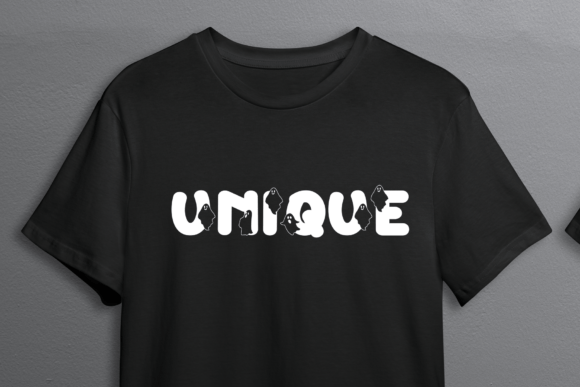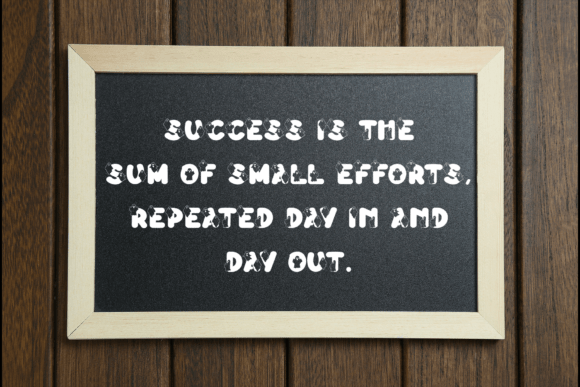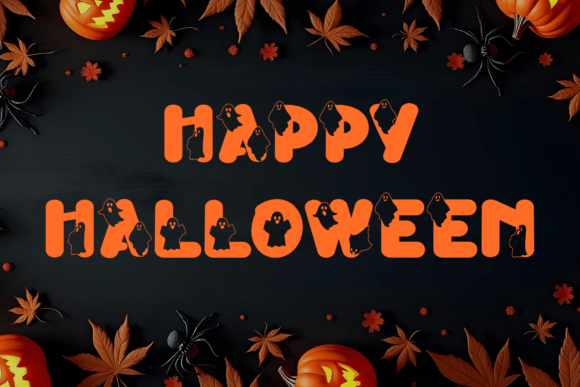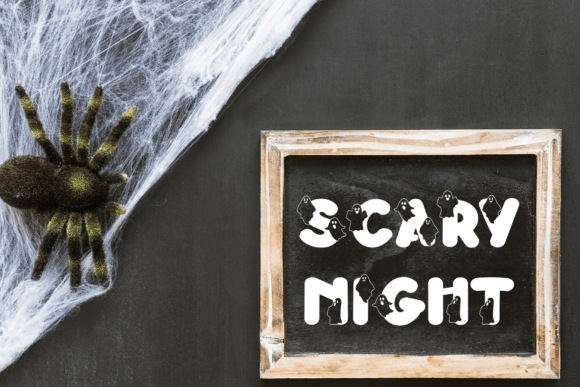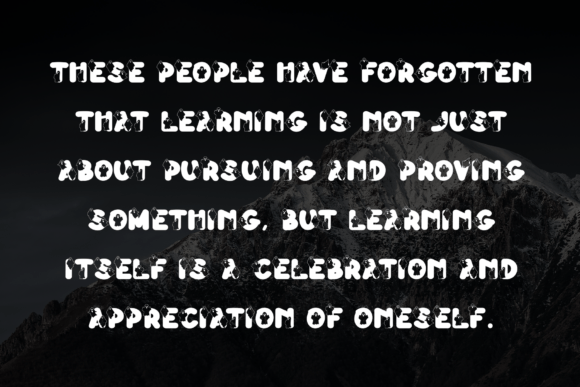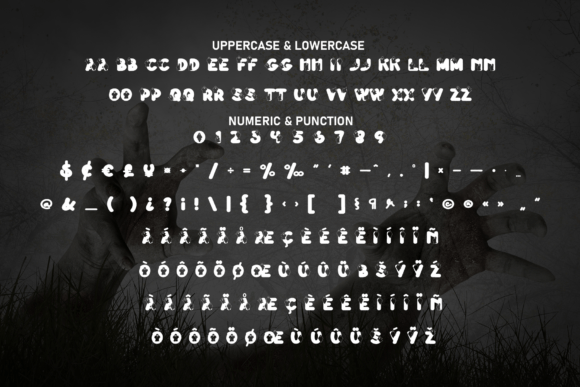
Welcome to the World of Whimsy: Exploring Hello Spooky Font
Do you remember the feeling of excitement you get when you stumble upon the perfect font for your next creative project? The thrill of seeing your words come to life in a unique and captivating way? For many designers, this is a moment of pure joy, and it’s exactly what we’re going to explore in this article – the delightful Hello Spooky Font.
This lovely decorative font is designed to add a touch of magic to your creative endeavors. Whether you’re working on a spooky-themed project, a children’s book, or a Halloween party invitation, Hello Spooky Font is the perfect companion to help you bring your ideas to life. Its unique charm makes it a valuable addition to any designer’s toolkit, and we can’t wait to dive deeper into its world of whimsy.
Hello Spooky Font Key Features
- Font Family: Hello Spooky Font is a unique, hand-drawn font family designed to evoke a spooky atmosphere. It includes uppercase and lowercase letters, as well as punctuation marks and numerals.
- Character Set: Hello Spooky Font includes a wide range of characters, including accented letters, symbols, and ligatures, making it suitable for various design applications.
- Unique Characteristics: Hello Spooky Font features a distinctive, hand-drawn style with irregular lines and subtle texture, giving it a unique and eerie feel.
Hello Spooky Font Review
As a designer, I was initially drawn to Hello Spooky Font for its unique, playful vibe. ✨ The font’s bold, hand-drawn feel instantly evokes a sense of Halloween spirit, making it perfect for seasonal projects or designs that need a touch of whimsy. ✨ The font’s high level of customization is also a major plus, with a wide range of options for adjusting size, color, and texture.
- High level of customization
- Unique, hand-drawn feel
- Perfect for seasonal or whimsical designs
However, I do have a few reservations about Hello Spooky Font. ⚠️ The font’s aesthetic, while initially charming, may start to feel overwhelming or gimmicky if overused. Additionally, some of the letters and symbols may not be perfectly legible, which could be a problem for designs where readability is a top priority. ⚠️
Overall, I’d say that Hello Spooky Font is a fun, if somewhat limited, addition to any designer’s toolkit. While it’s perfect for certain types of projects, it may not be the best choice for more serious or high-stakes designs. With a bit of restraint and careful consideration, however, this font could add a much-needed touch of personality to your designs.
Hello Spooky Font: A Practical Application Guide
Tips for Getting the Most Out of Hello Spooky Font
For best results, use Hello Spooky Font in conjunction with other spooky-themed elements, such as ghostly textures and creepy colors. Experiment with different font sizes and styles to create a haunting atmosphere.
Hello Spooky Font is perfect for Halloween-themed designs, spooky invitations, and haunted house decorations. It’s also great for adding a touch of eeriness to your social media graphics and website headers.